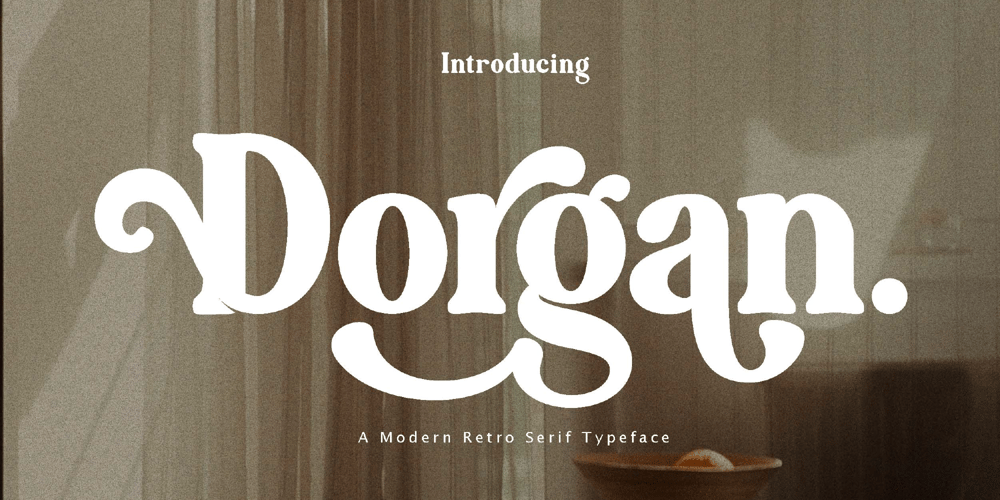
Dorgan Font Family was designed by Achmad Yani and published by Flawlessandco. Dorgan contains 1 styles and family package options. Dorgan is a Serif Retro with Fun and Elegant Style in each character with some alternate.An Original typeface that suitable for any graphic designs such as branding materials, t-shirt, print, business cards, logo, poster, t-shirt, photography, quotes .etcThis font support for some multilingual. Serif Retro Font that contains uppercase A-Z and lowercase a-z, alternate character, numbers 0-9, and some punctuation.If you need help, just write me! Thanks so much for checking out my shop!